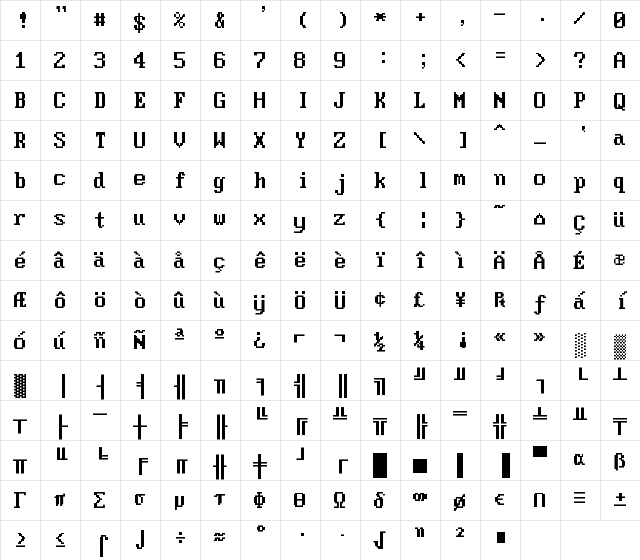
Moder DOS 437 Regular
| Designer | GrandChaos9000 |
Design Context for Moder DOS 437 Typeface
Moder DOS 437 is a composed and adaptable typeface that performs quietly and consistently across a wide range of design contexts.